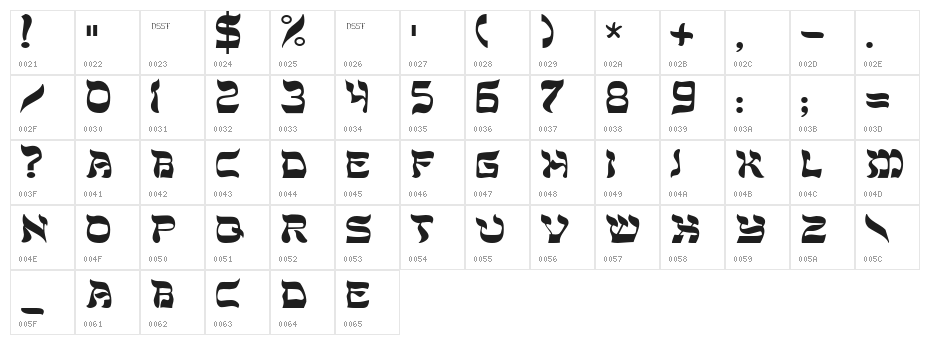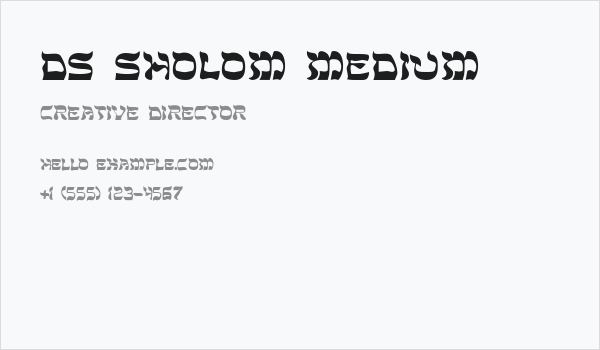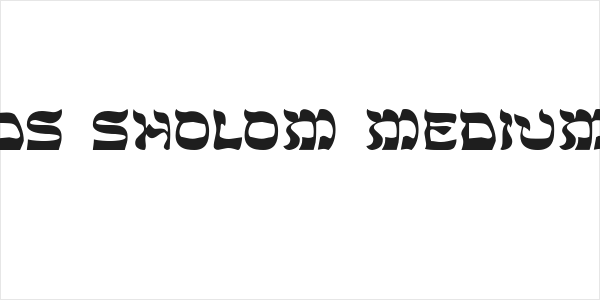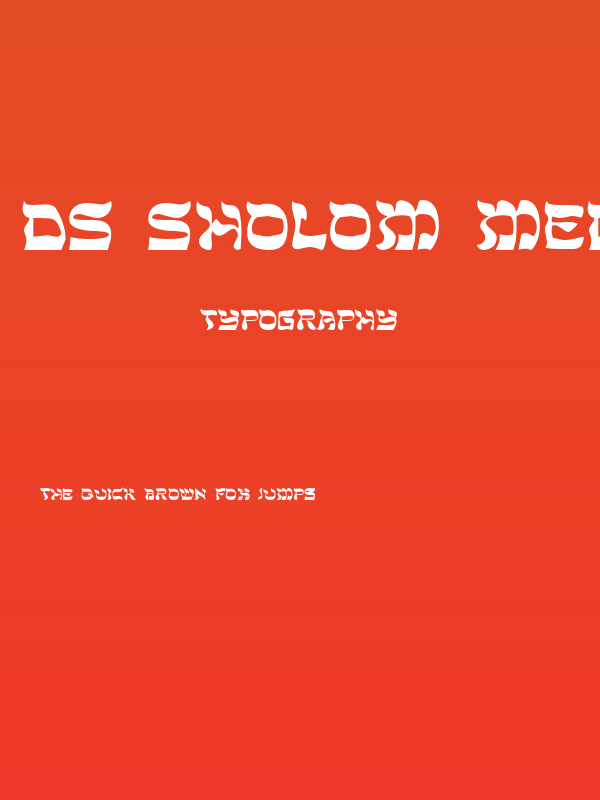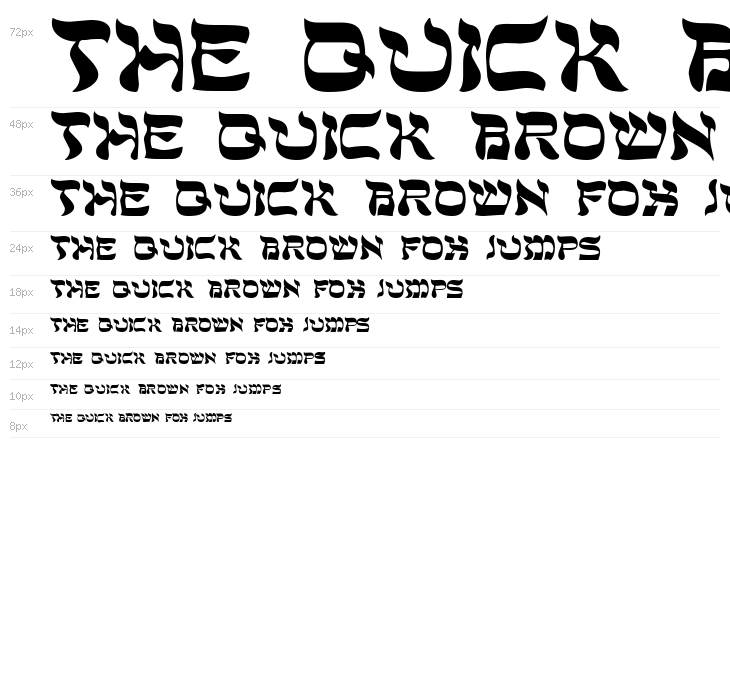
DS Sholom Medium Font
DS Sholom Medium Description
This font features a bold and dynamic design with a unique, artistic flair. The characters are crafted with sharp, angular edges and a distinct, flowing style that gives each letter a sense of movement. The uppercase and lowercase letters maintain a consistent theme, with exaggerated curves and pointed terminals that create a striking visual impact. The numbers and special characters follow the same design principles, ensuring a cohesive look across all glyphs. This font's boldness and decorative elements make it stand out, offering a modern twist on traditional letterforms.
Overall StyleModern, Decorative
Proposed ProjectsIdeal for branding, poster design, album covers, and any project requiring a bold, artistic touch.